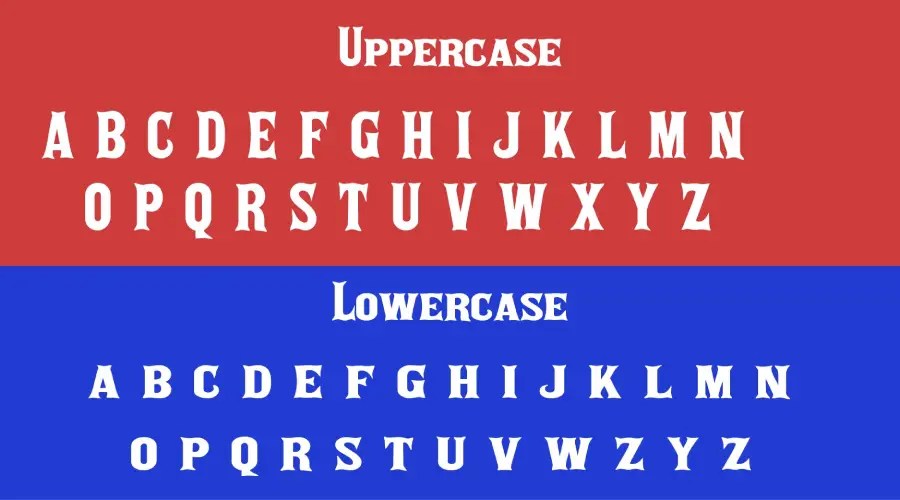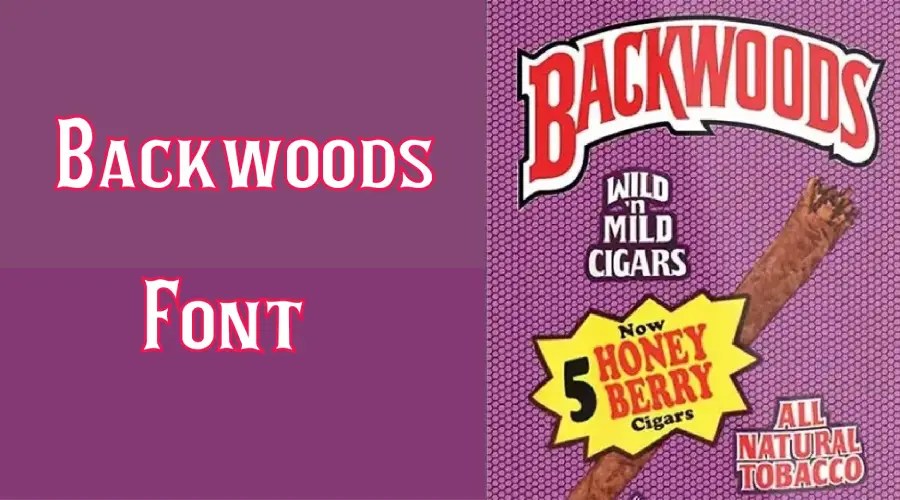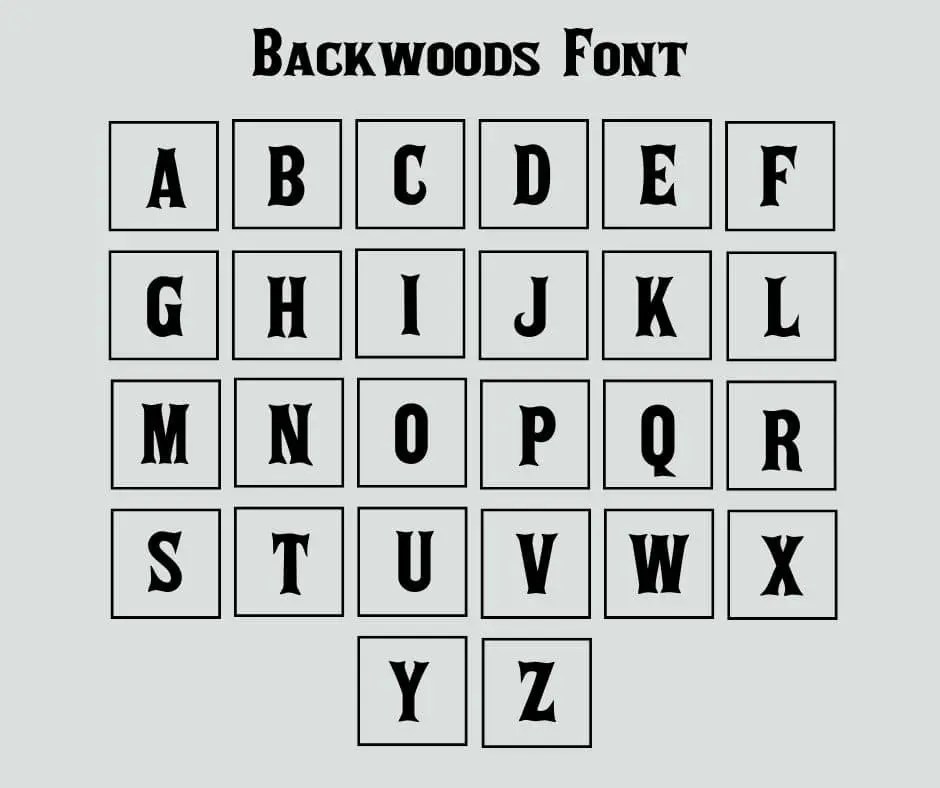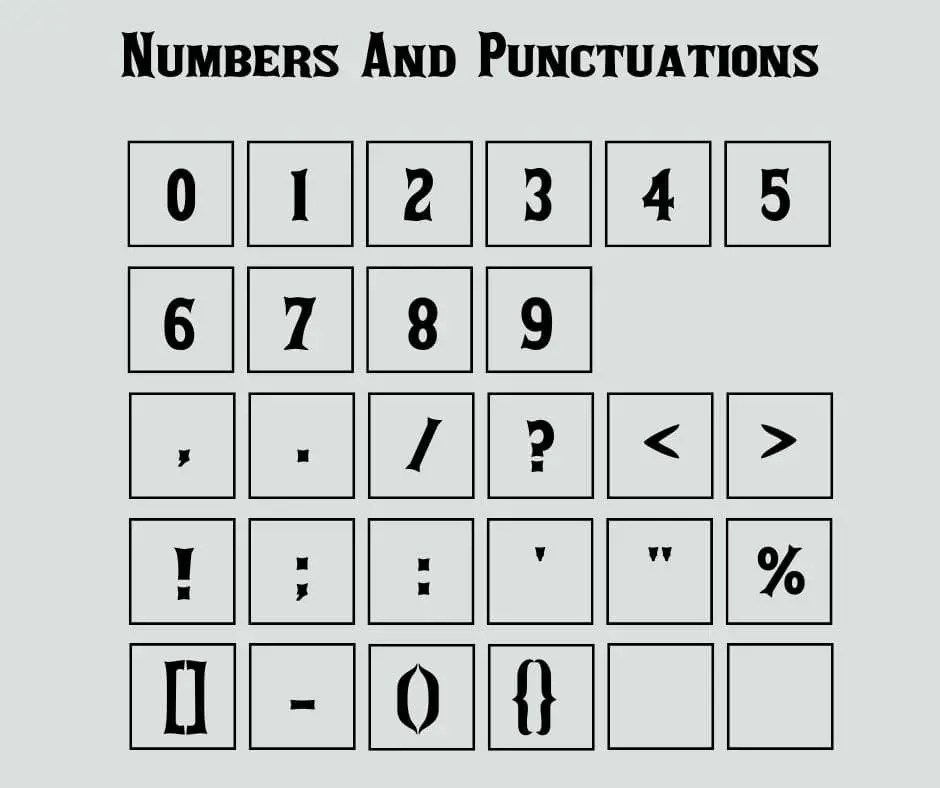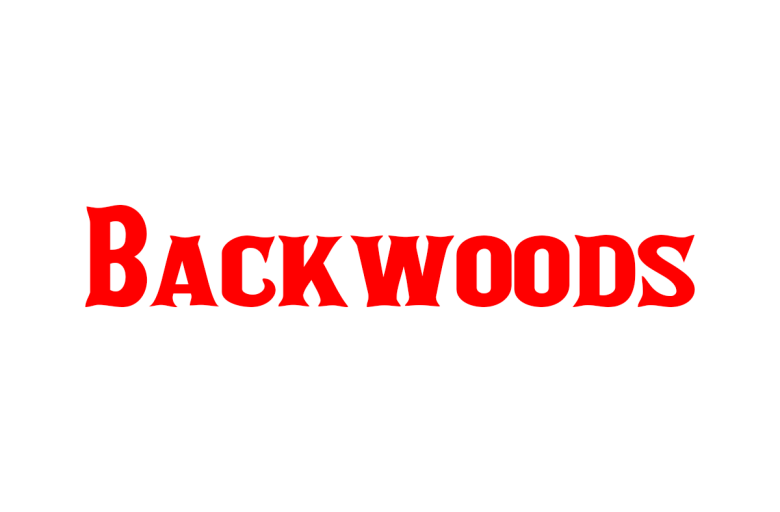
What Font Is Backwoods . This amazing typeface that was designed and published by akatype font foundry. Whatthefont is available for both ios and android devices. Ttf in a zip file. The vintage “rustic” typeface used by the designers was created especially for backwoods. The font is called aka posse. It’s a blend of history, culture, and design that resonates with both cigar enthusiasts and. Aka posse is the font that matches the backwoods logo font most. Enter your own text and play with font size for the full experience. Backwoods is a multipurpose lowercase & uppercase display typeface font with a gorgeous style (backwoods regular font). It is similar to aka posse from akatype, but the shape of the letters is. The logo is a custom design that is unavailable as a font. This display font that has come in only one style. Backwoods font is a serif and logo typeface that features letters with tiny serif and mainly used for display titles.
The logo is a custom design that is unavailable as a font. This display font that has come in only one style. It is similar to aka posse from akatype, but the shape of the letters is. Enter your own text and play with font size for the full experience. Backwoods font is a serif and logo typeface that features letters with tiny serif and mainly used for display titles. Whatthefont is available for both ios and android devices. Ttf in a zip file. Backwoods is a multipurpose lowercase & uppercase display typeface font with a gorgeous style (backwoods regular font). This amazing typeface that was designed and published by akatype font foundry. The vintage “rustic” typeface used by the designers was created especially for backwoods.
What Font Is Backwoods The font is called aka posse. It’s a blend of history, culture, and design that resonates with both cigar enthusiasts and. Backwoods font is a serif and logo typeface that features letters with tiny serif and mainly used for display titles. Aka posse is the font that matches the backwoods logo font most. This display font that has come in only one style. It is similar to aka posse from akatype, but the shape of the letters is. This amazing typeface that was designed and published by akatype font foundry. Ttf in a zip file. Enter your own text and play with font size for the full experience. Backwoods is a multipurpose lowercase & uppercase display typeface font with a gorgeous style (backwoods regular font). The vintage “rustic” typeface used by the designers was created especially for backwoods. The logo is a custom design that is unavailable as a font. Whatthefont is available for both ios and android devices.
Backwoods Cabin Font Nature font, Fonts, Backwoods What Font Is Backwoods This amazing typeface that was designed and published by akatype font foundry. Ttf in a zip file. It is similar to aka posse from akatype, but the shape of the letters is. The vintage “rustic” typeface used by the designers was created especially for backwoods. Aka posse is the font that matches the backwoods logo font most. Enter your own. What Font Is Backwoods.
Backwoods Font Free Fonts Vault What Font Is Backwoods It is similar to aka posse from akatype, but the shape of the letters is. Backwoods font is a serif and logo typeface that features letters with tiny serif and mainly used for display titles. Ttf in a zip file. Backwoods is a multipurpose lowercase & uppercase display typeface font with a gorgeous style (backwoods regular font). Whatthefont is available. What Font Is Backwoods.
Backwoods Font Free Download Free Fonts World What Font Is Backwoods It is similar to aka posse from akatype, but the shape of the letters is. The vintage “rustic” typeface used by the designers was created especially for backwoods. Aka posse is the font that matches the backwoods logo font most. Backwoods is a multipurpose lowercase & uppercase display typeface font with a gorgeous style (backwoods regular font). This amazing typeface. What Font Is Backwoods.
Backwoods Font Free Download What Font Is Backwoods The logo is a custom design that is unavailable as a font. The vintage “rustic” typeface used by the designers was created especially for backwoods. This amazing typeface that was designed and published by akatype font foundry. This display font that has come in only one style. Enter your own text and play with font size for the full experience.. What Font Is Backwoods.
Backwoods Font Generator Fonts Pool What Font Is Backwoods Enter your own text and play with font size for the full experience. Aka posse is the font that matches the backwoods logo font most. The logo is a custom design that is unavailable as a font. It’s a blend of history, culture, and design that resonates with both cigar enthusiasts and. The vintage “rustic” typeface used by the designers. What Font Is Backwoods.
Backwoods Font Free Download What Font Is Backwoods Ttf in a zip file. The vintage “rustic” typeface used by the designers was created especially for backwoods. The logo is a custom design that is unavailable as a font. The font is called aka posse. This display font that has come in only one style. Whatthefont is available for both ios and android devices. Enter your own text and. What Font Is Backwoods.
Backwoods Font Free Fonts World What Font Is Backwoods The vintage “rustic” typeface used by the designers was created especially for backwoods. Whatthefont is available for both ios and android devices. Aka posse is the font that matches the backwoods logo font most. The font is called aka posse. It’s a blend of history, culture, and design that resonates with both cigar enthusiasts and. Backwoods is a multipurpose lowercase. What Font Is Backwoods.
Backwoods Font » Fonts Max What Font Is Backwoods It is similar to aka posse from akatype, but the shape of the letters is. Ttf in a zip file. Enter your own text and play with font size for the full experience. Aka posse is the font that matches the backwoods logo font most. The font is called aka posse. It’s a blend of history, culture, and design that. What Font Is Backwoods.
Backwoods Font Free Fonts Vault What Font Is Backwoods Whatthefont is available for both ios and android devices. Backwoods font is a serif and logo typeface that features letters with tiny serif and mainly used for display titles. This display font that has come in only one style. This amazing typeface that was designed and published by akatype font foundry. The logo is a custom design that is unavailable. What Font Is Backwoods.